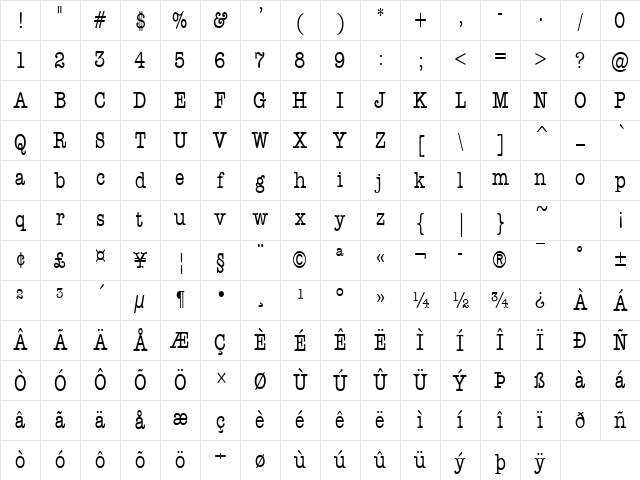
Headline Thin Normal Free Font
Headline Thin Normal
Headline Thin Normal Family
Headline Thin Normal
Design Context for Headline Thin
Headline Thin is a composed and adaptable typeface that performs quietly and consistently across a wide range of design contexts. Its slender proportions lend an understated elegance to any composition.
Pro Tip: Use Headline Thin in both headline and body roles to test its range before committing to a single application.